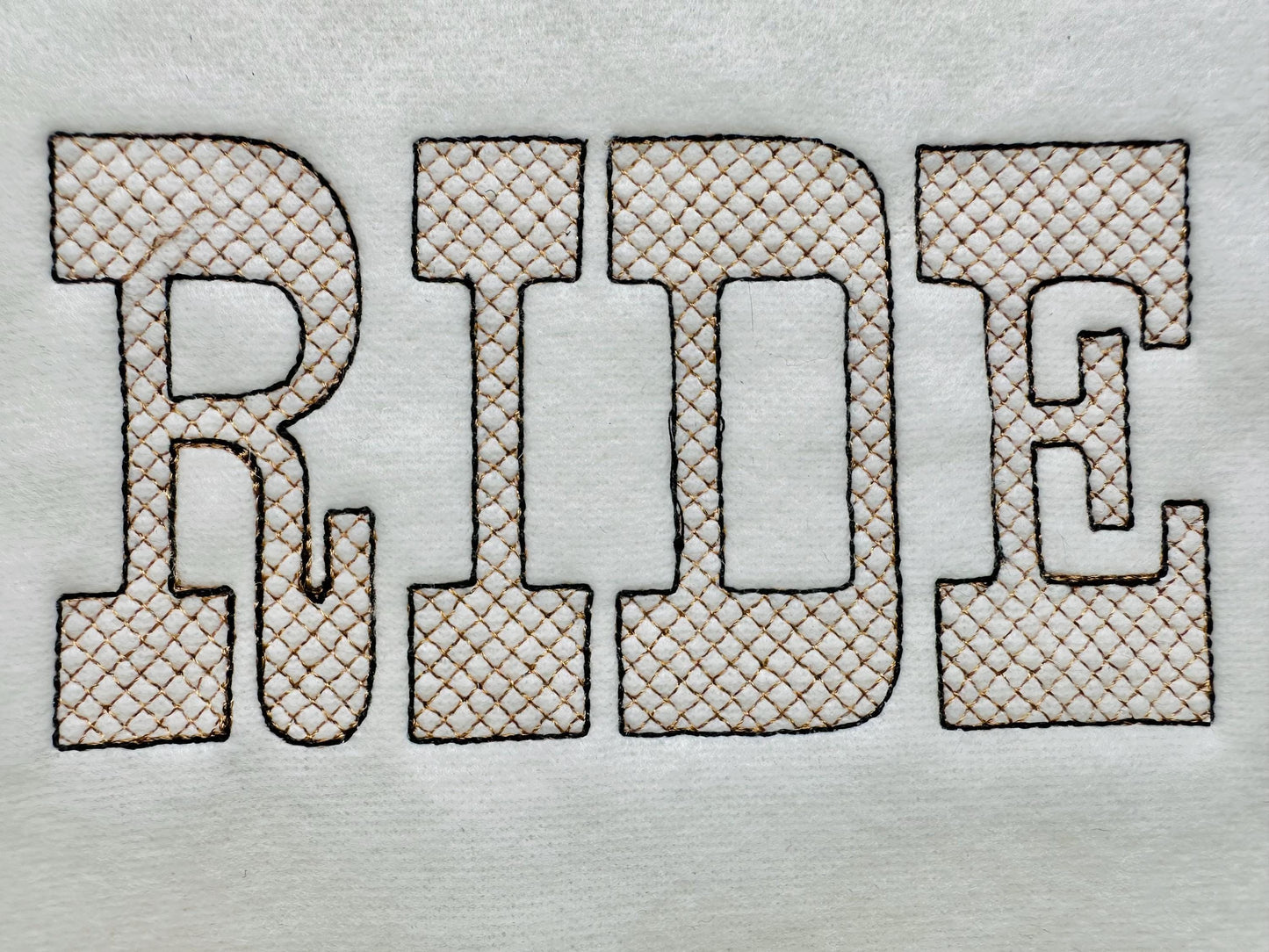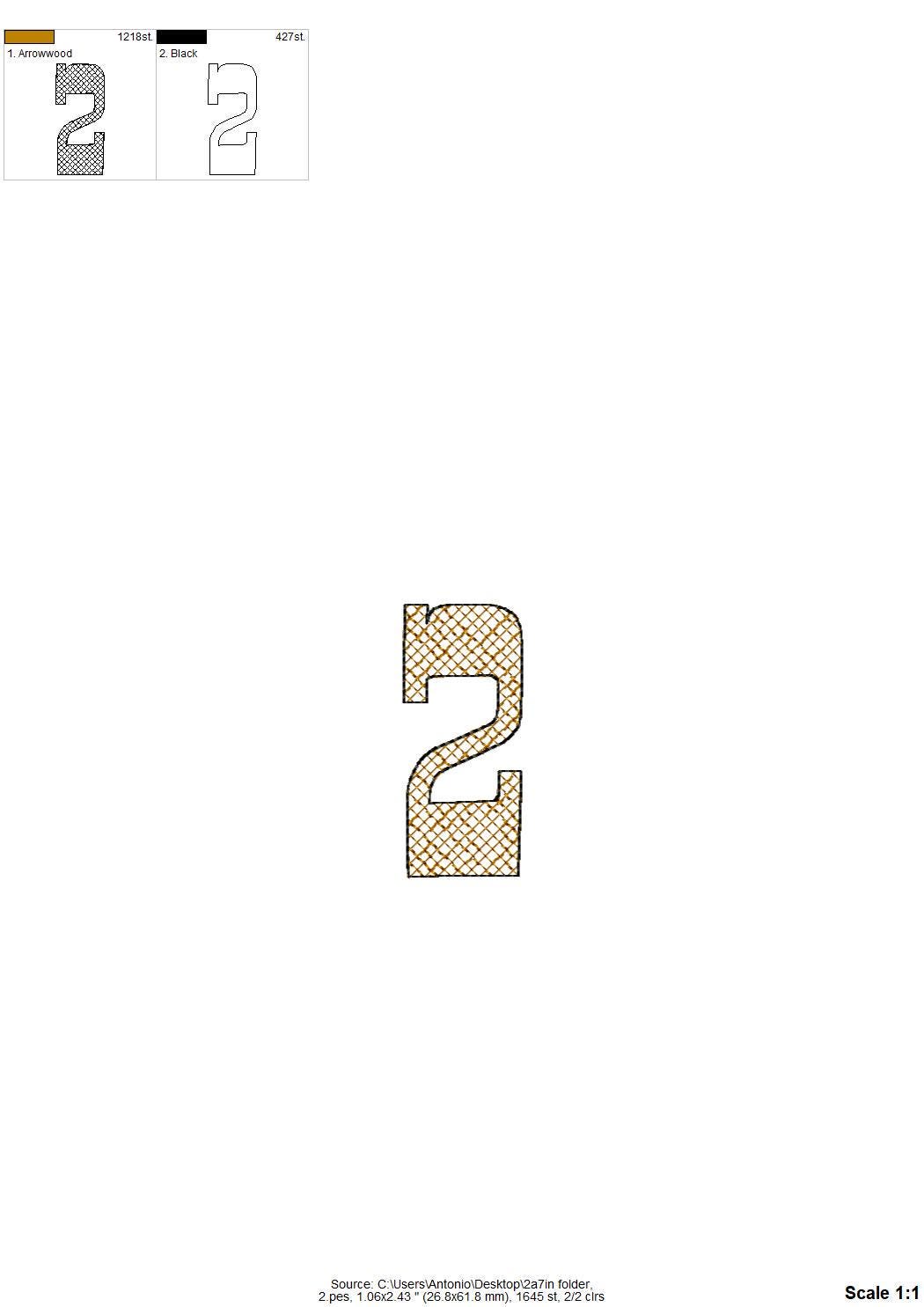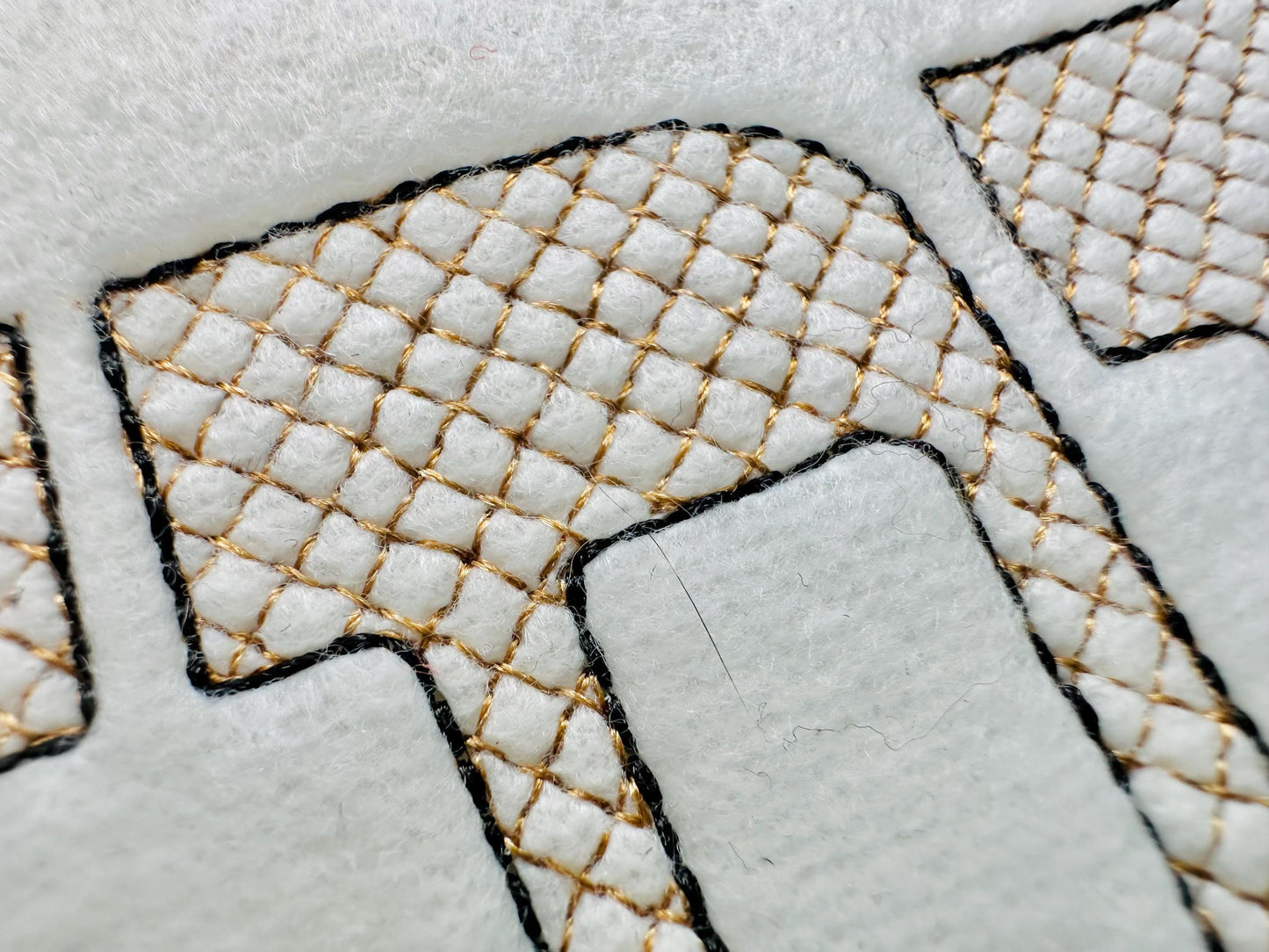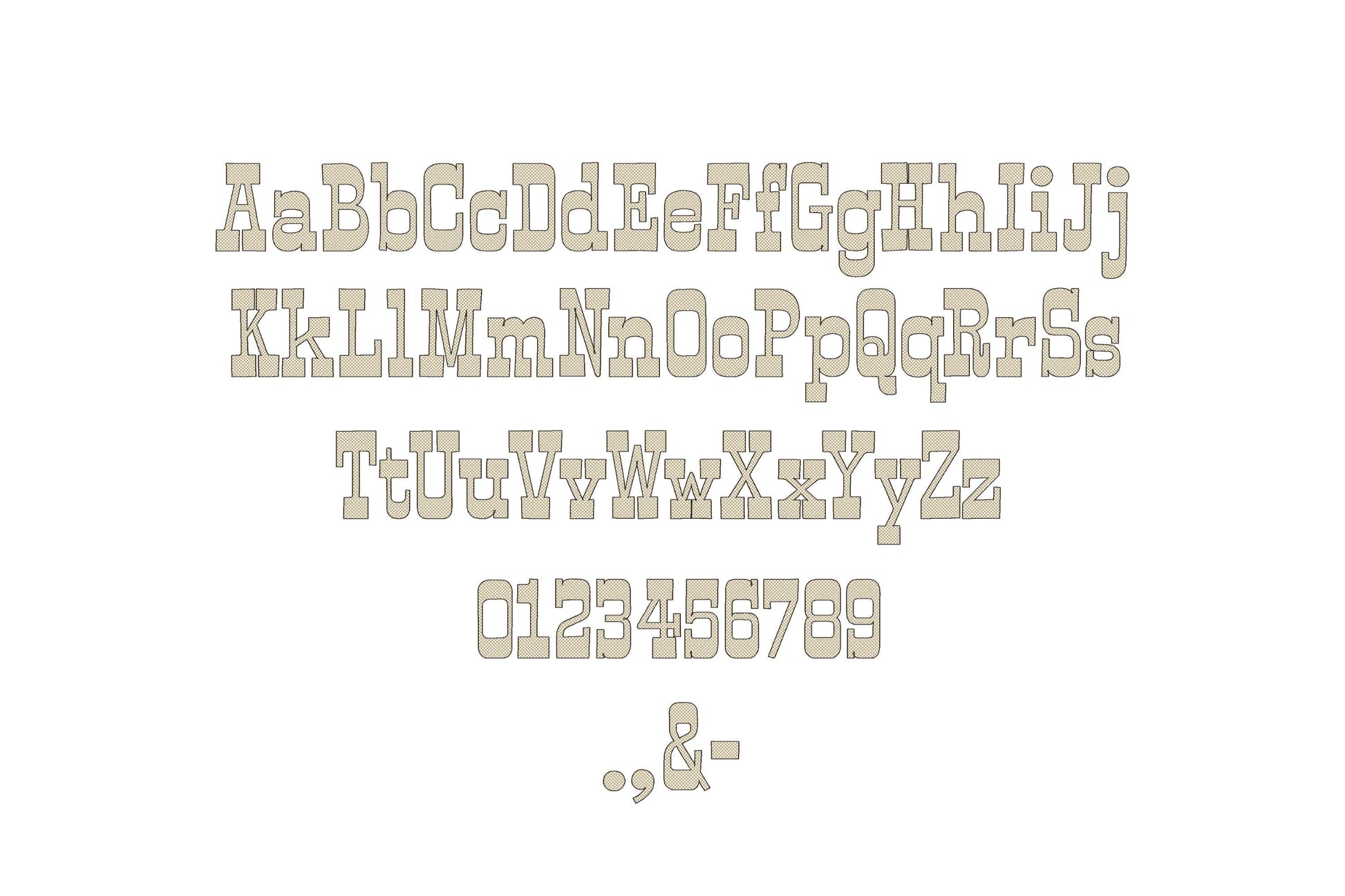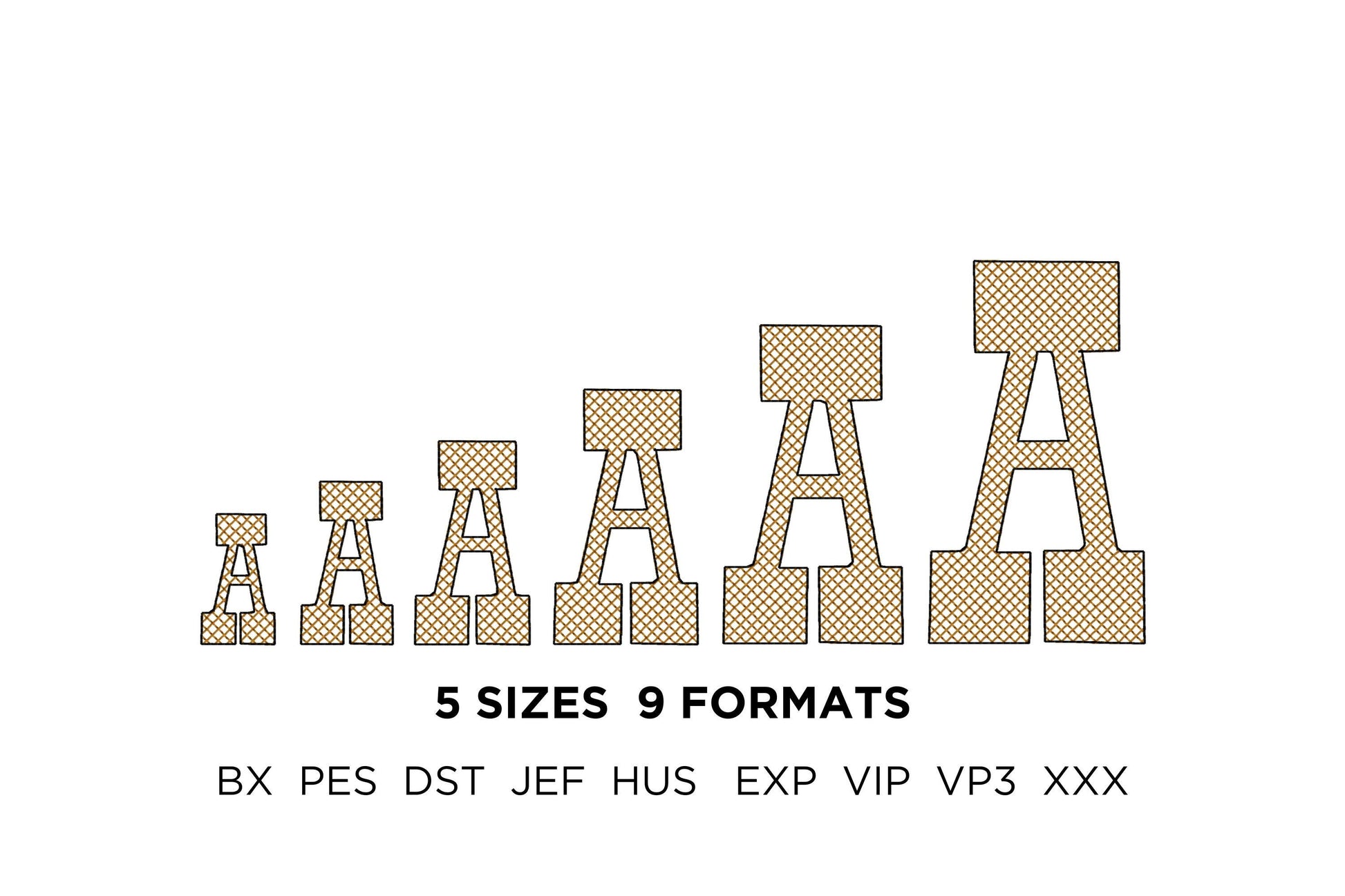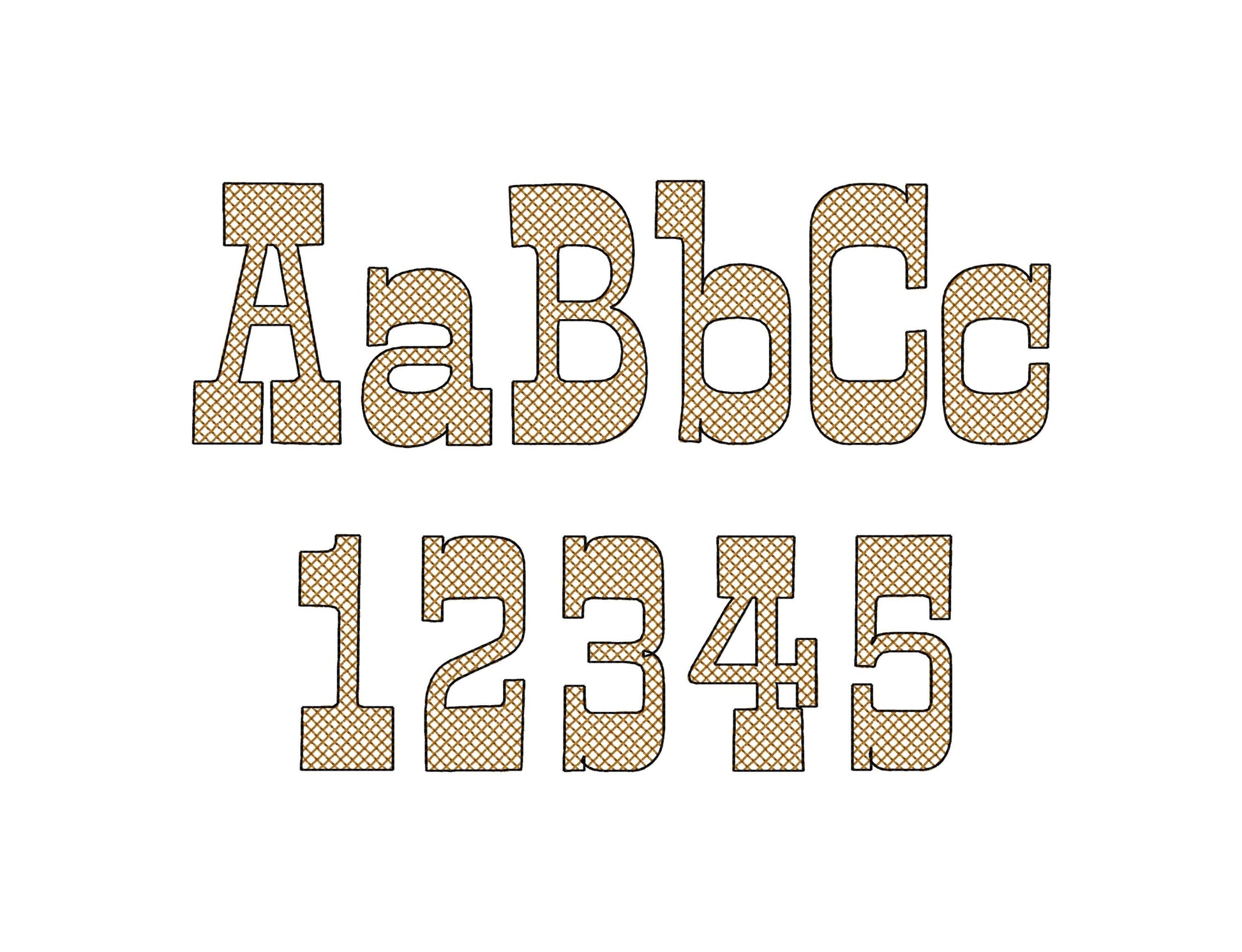
Light Stitch Diamond Quilt Western Font
Whole alphabet uppercase and lowercase letters Aa-Zz, numbers 0-9, and punctuation.
This is a light stitch font. The lines are part of the design. The background fabric looks through. Stunning effect!